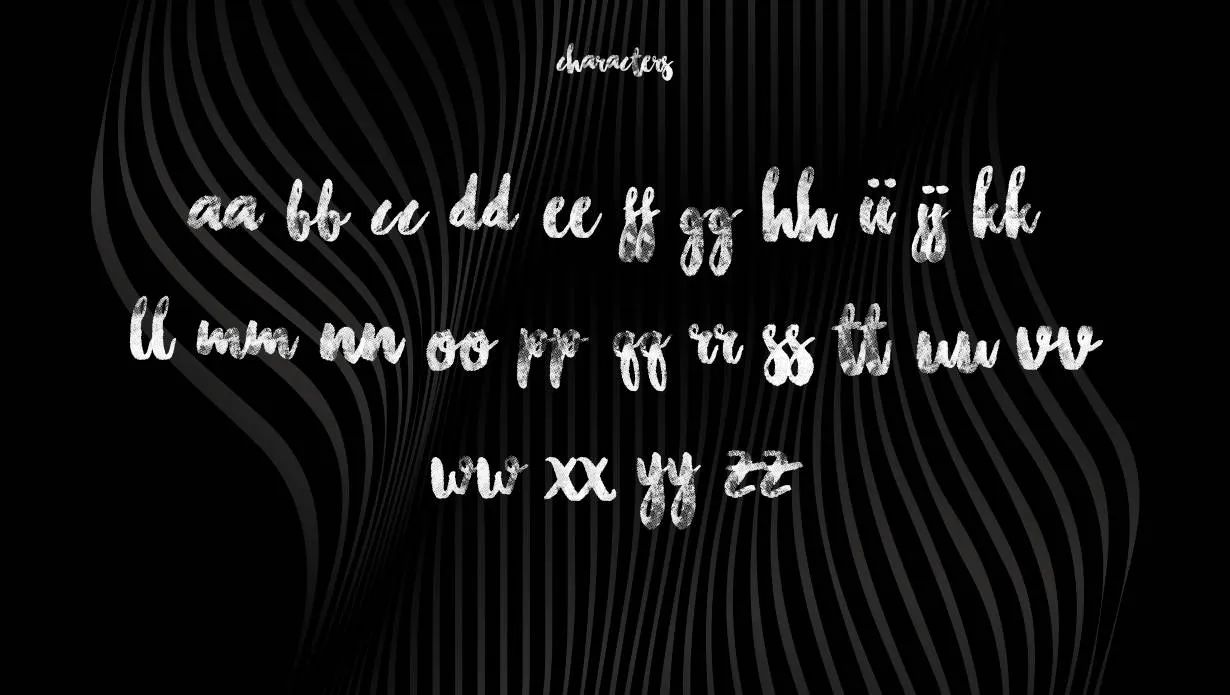
Chasing Embers Typeface Font is akin to possessing a pen that can enhance the appearance of your words with cool and artistic flair. It lends a unique charm to your writing, transforming it into a masterpiece.
This font has different styles, like a wardrobe with clothes for different occasions. Whether you want something elegant or bold, Chasing Embers has covered you.
- Chasing Embers Typeface Regular
- Chasing Embers TypefaceLight
- Chasing Embers Typeface Bold
View of Chasing Embers Typeface Font
Chasing Embers Typeface Font Info
| Name | Chasing Embers Typeface Font |
| Designer | The Branded Quotes |
| Style | Brush |